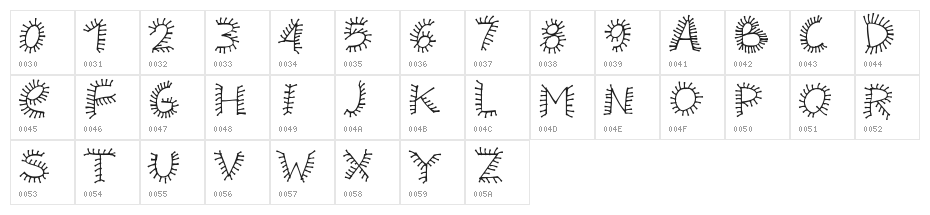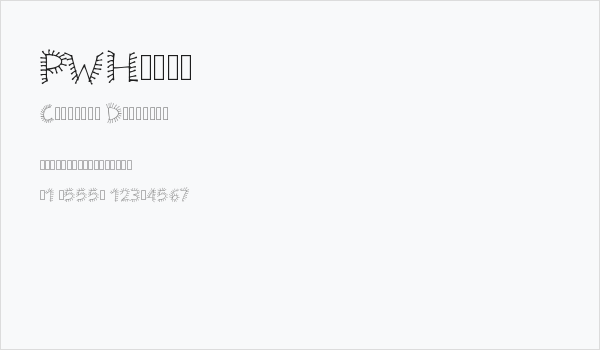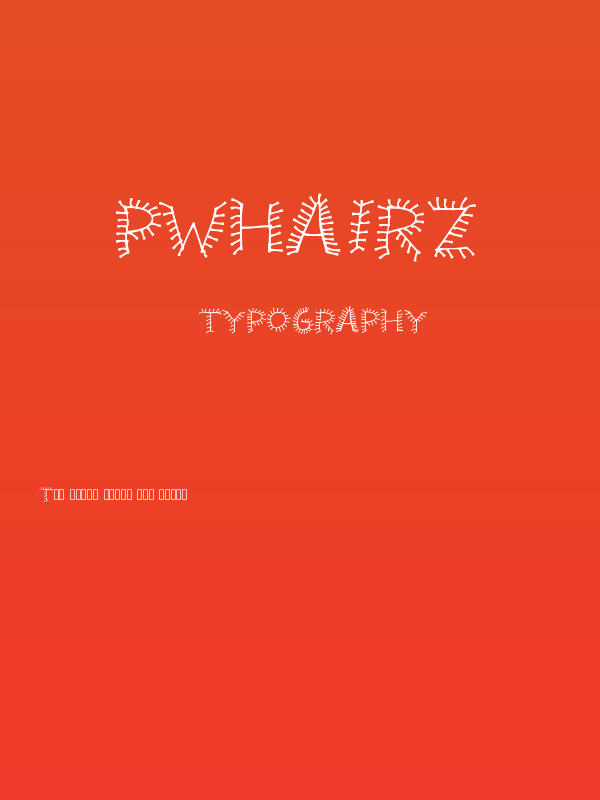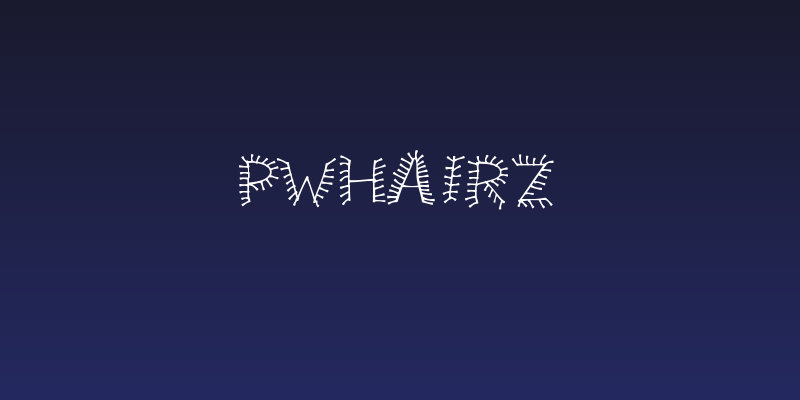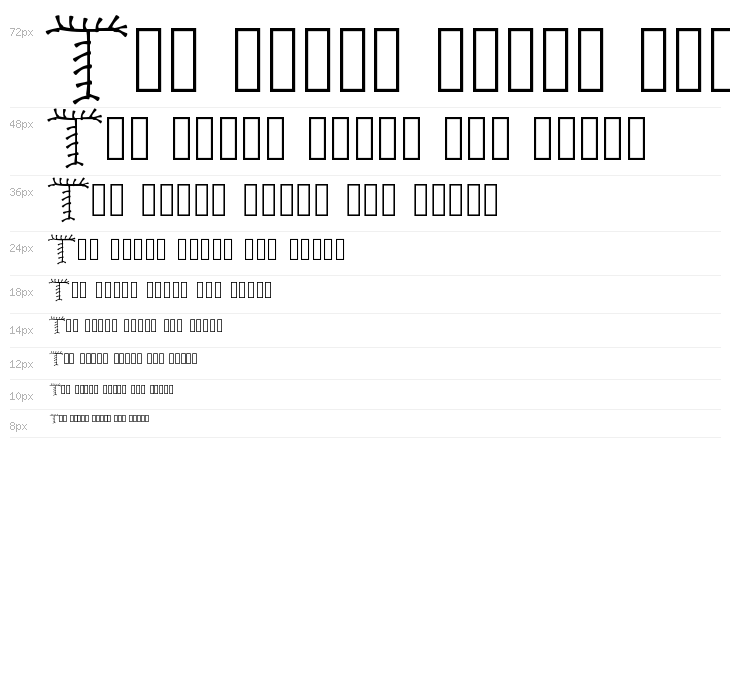
PWHairz Font
PWHairz Description
This unique and playful font features characters adorned with hair-like extensions, giving it a whimsical and eye-catching appearance. Each letter and number is crafted with a series of short, spiky lines radiating outward, resembling eyelashes or hair strands. The overall design is bold and distinctive, making it ideal for creative and unconventional projects. The font maintains a consistent style across uppercase, lowercase, and numerical characters, ensuring a cohesive look. Its decorative nature makes it suitable for projects that require a fun and engaging visual element.